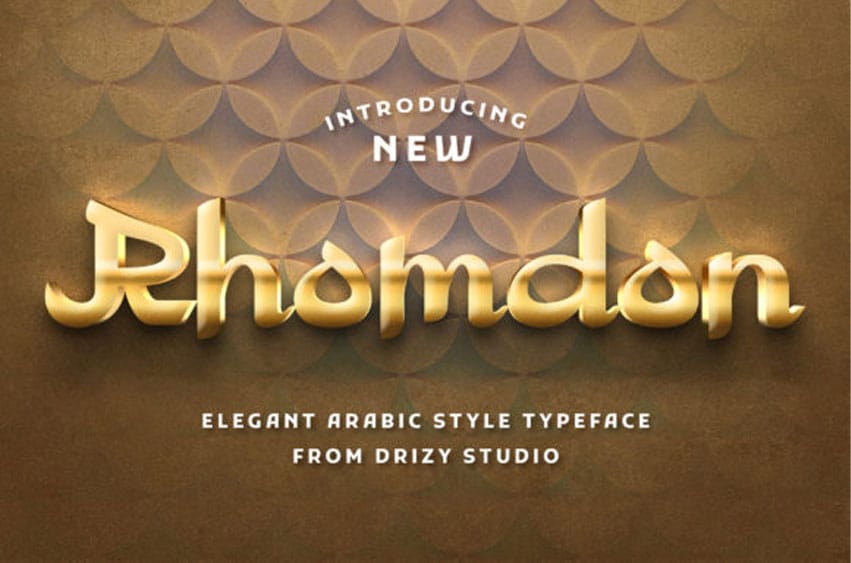
Rhomdon Font is an elegant Arabic-style typeface. It has beautiful and well-balanced characters and as a result, it matches a wide pool of designs.
Add it to your most creative ideas and notice how it makes them come alive!